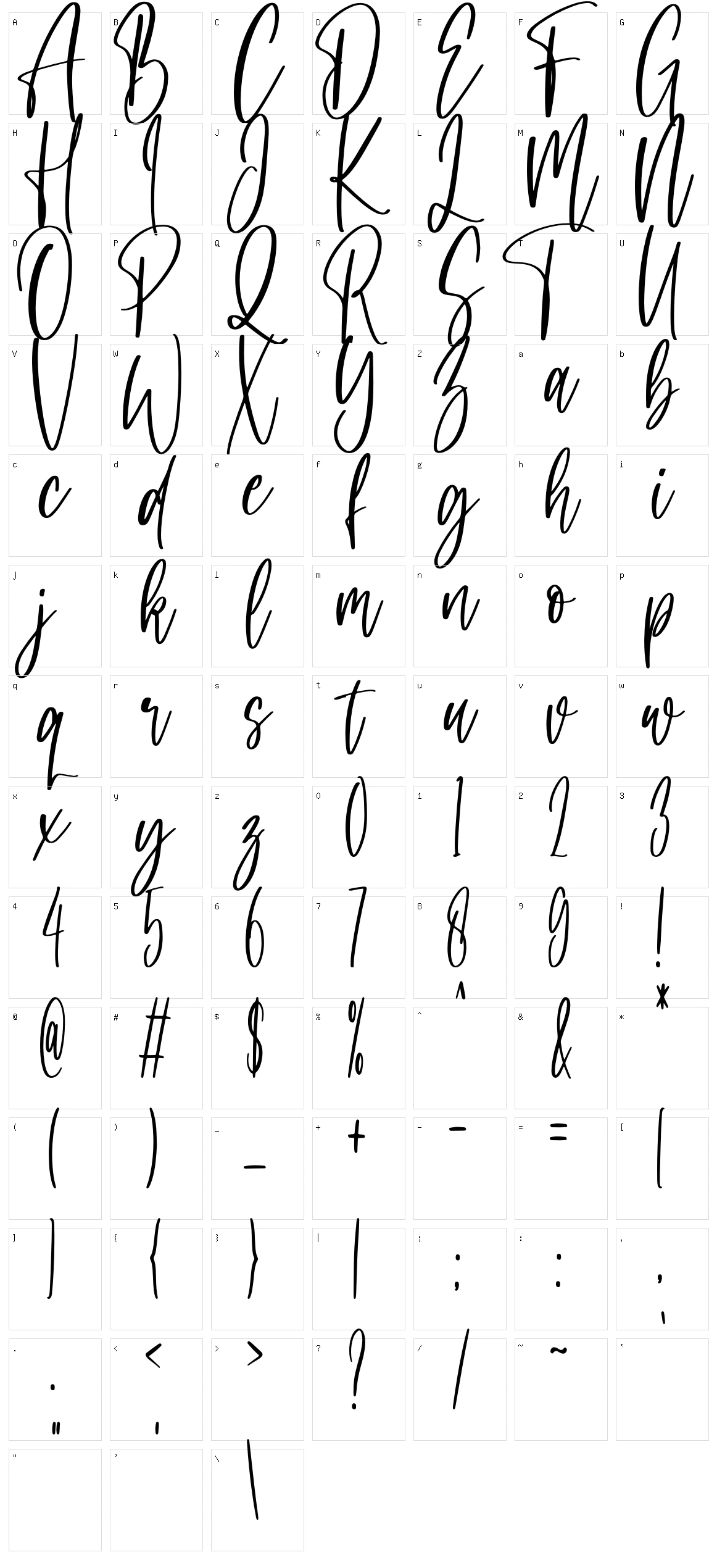
The free font Daddy Day is carefully designed by NJ Studio, showcasing a thoughtful balance of creativity and usability and falls under the Script font style. When you download the ZIP file, it contains only 63.5 KB of font files, making it lightweight and quick to download. Please review the license details below to understand permitted usage and distribution rights. If license information is not available, we recommend using this font for personal projects only or contacting the author directly for commercial usage permissions.